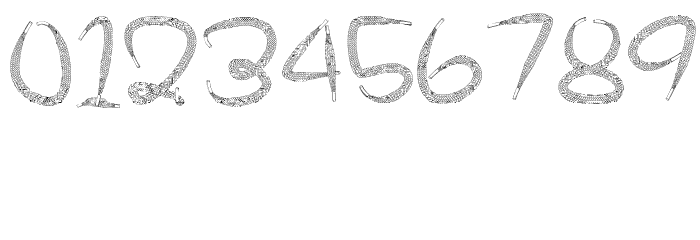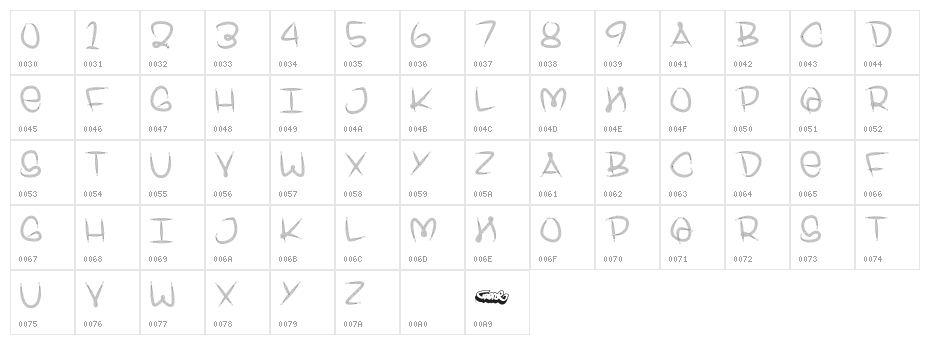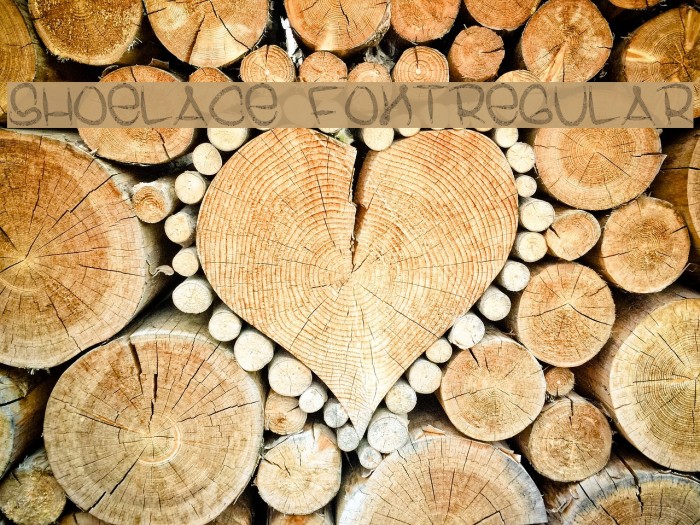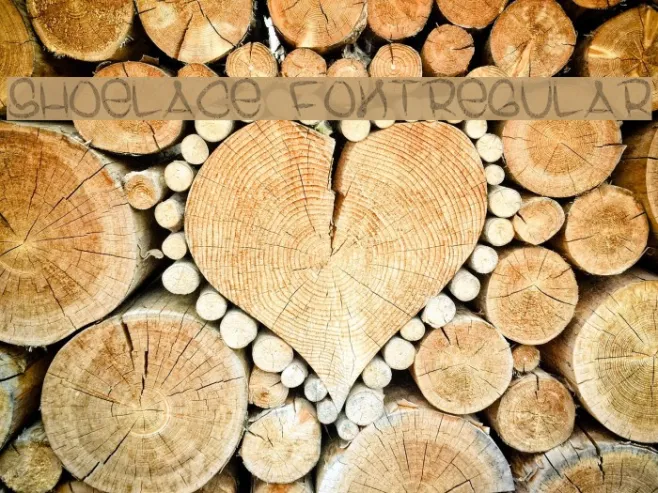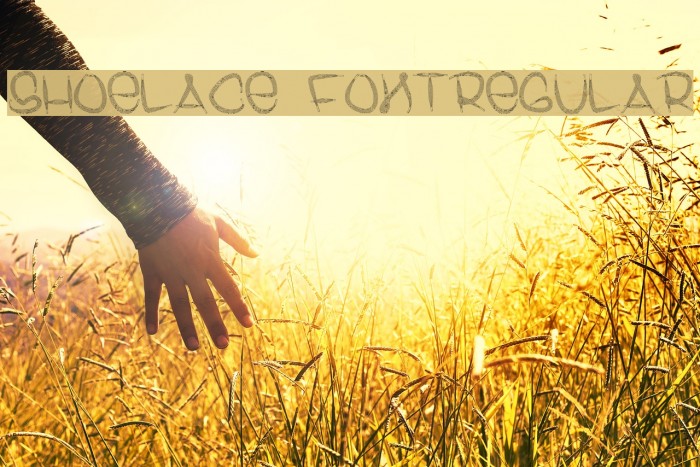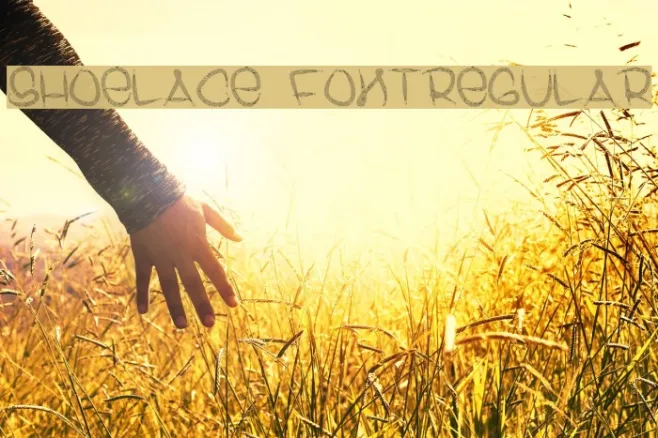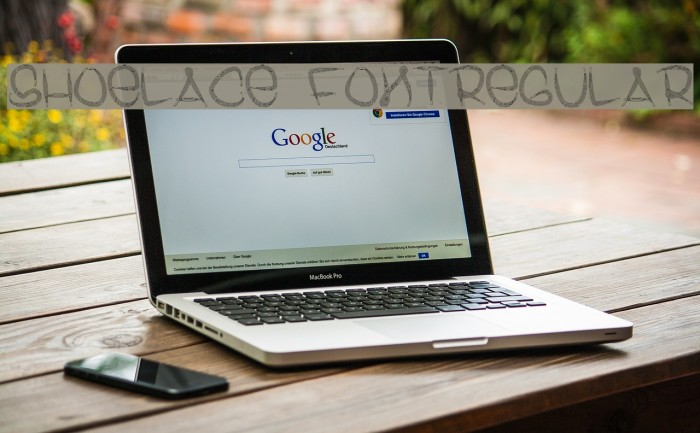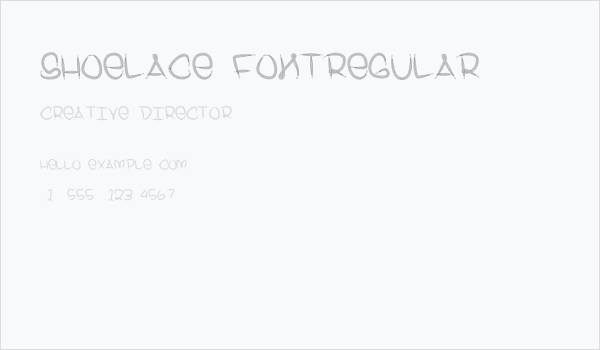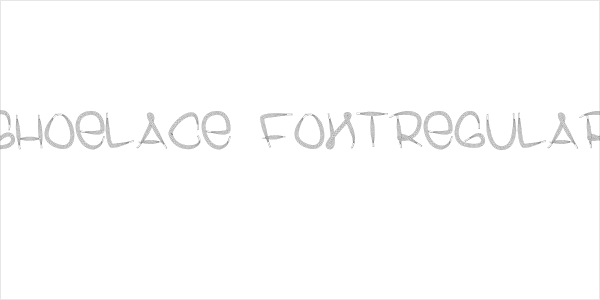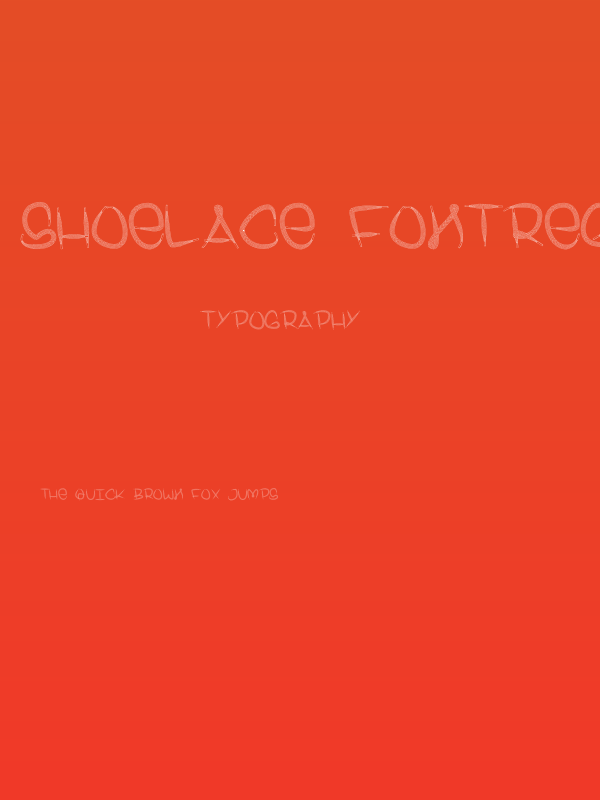
Shoelace FontRegular Font
Shoelace FontRegular Description
This font features a unique, textured design that mimics the appearance of shoelaces, creating a playful and distinctive look. Each character is crafted with a detailed pattern that resembles intertwined threads, giving it a handcrafted feel. The letters are slightly irregular, adding to the casual and artistic vibe. This font stands out with its decorative style, making it ideal for creative projects that require a touch of whimsy and originality. The overall appearance is both modern and artistic, suitable for a variety of design applications.
| Use Case | Logos, Posters, Creative projects |
| Proposed Projects | Ideal for creative projects such as posters, invitations, branding, and any design that seeks a unique and artistic touch. |